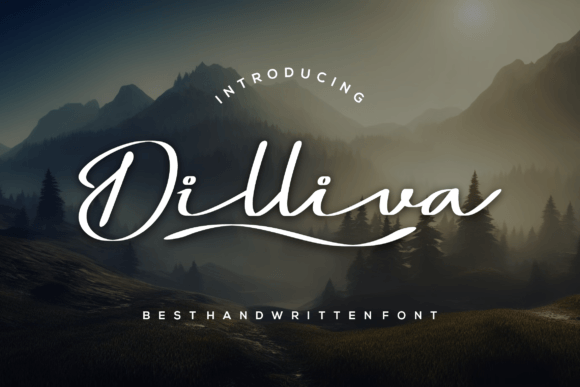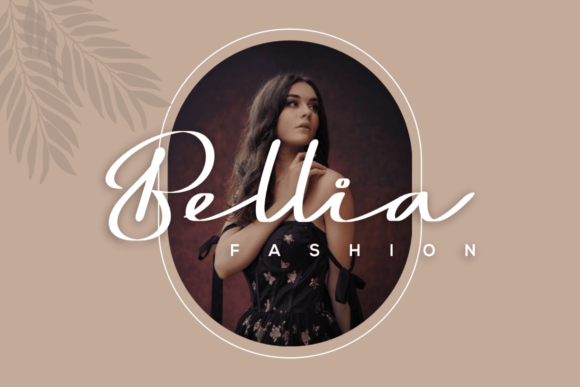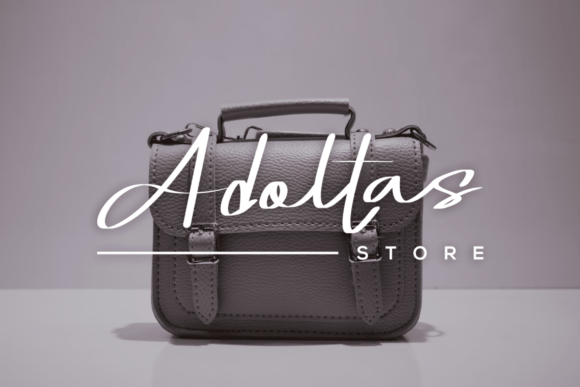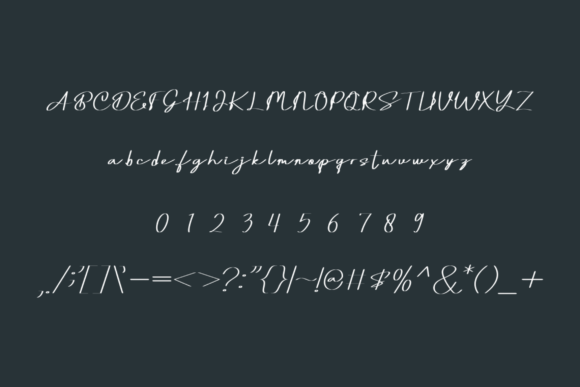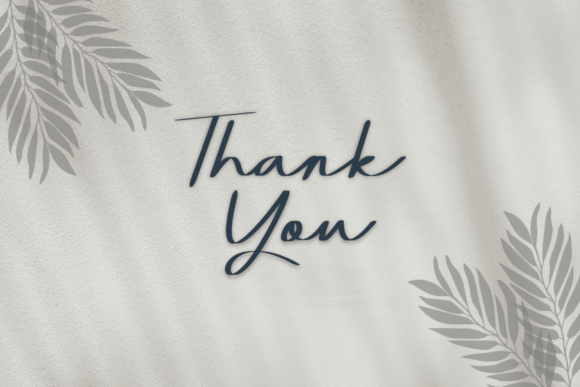
Dilliva Font
About Dilliva Font
Dilliva is a delicate, elegant, and flowing handwritten font. It has beautiful and well-balanced characters and as a result, it matches a wide pool of designs.